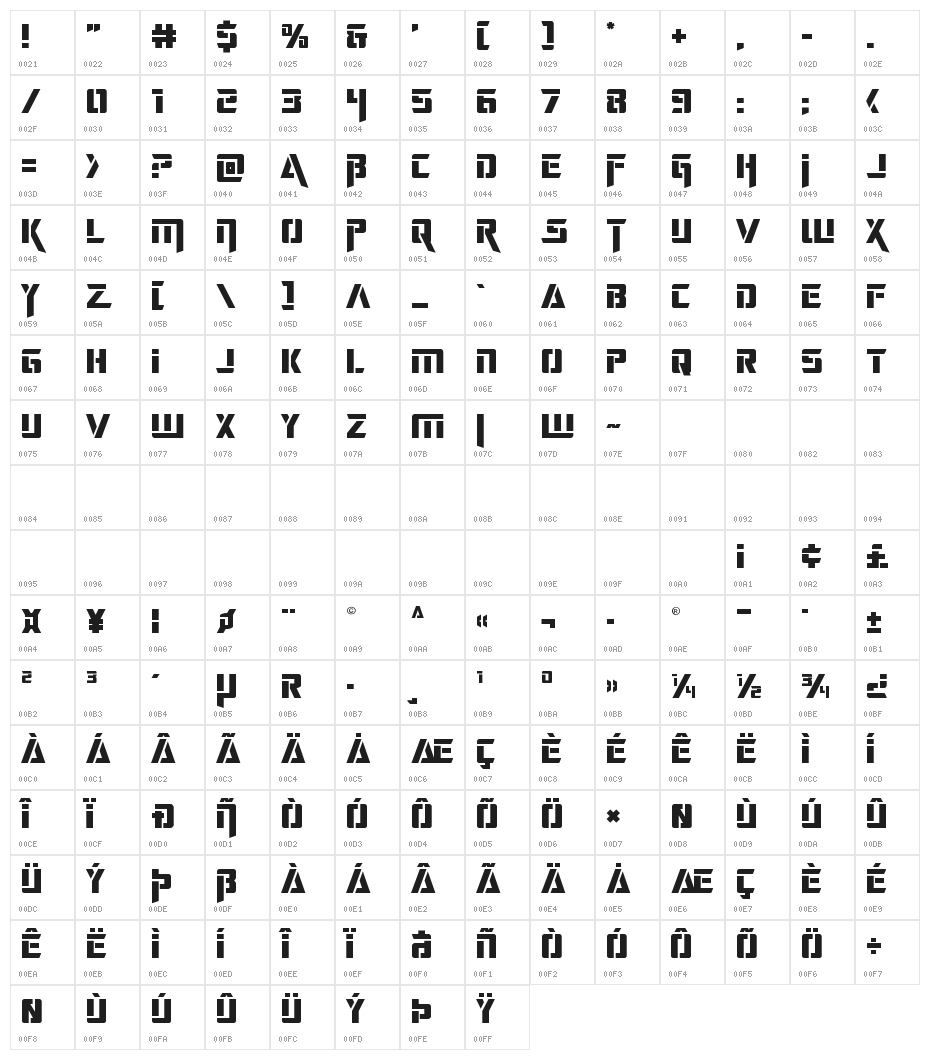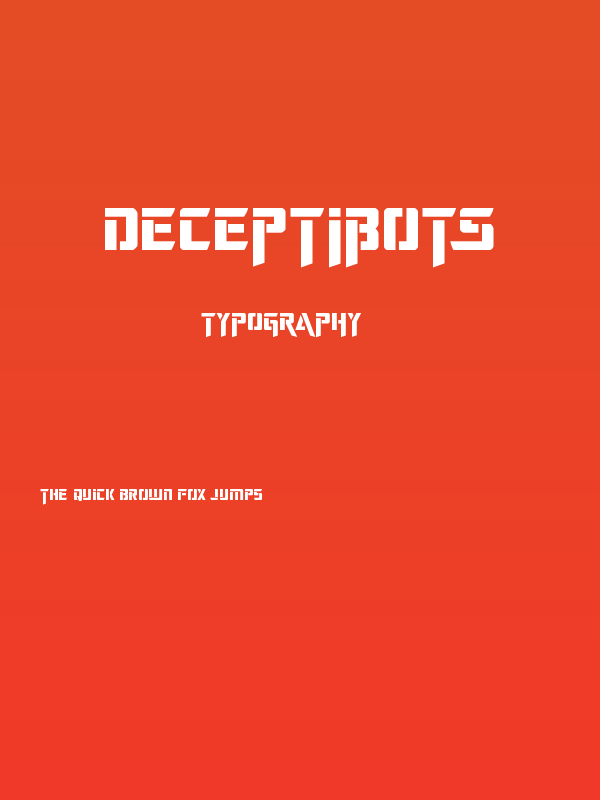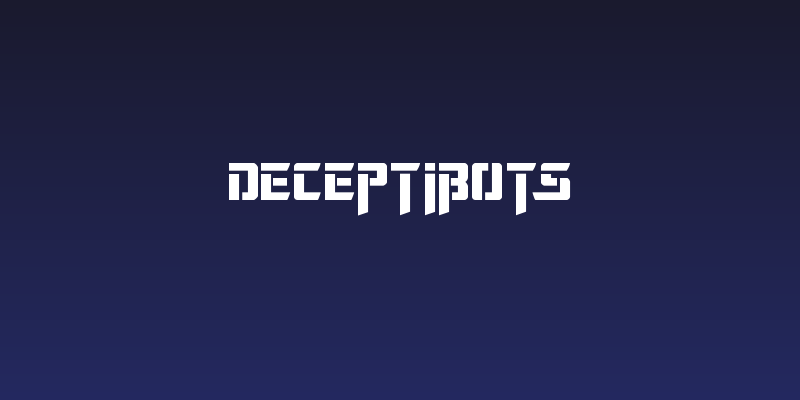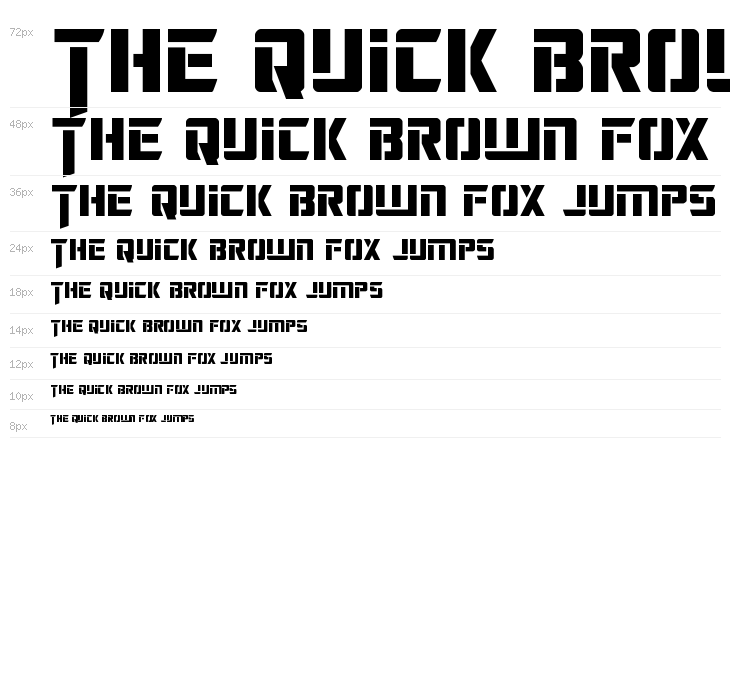
Deceptibots Font
Deceptibots Description
This font features a bold, angular design with a futuristic and mechanical aesthetic. The characters are constructed with sharp edges and geometric shapes, giving them a robotic and industrial feel. The uppercase and lowercase letters maintain a consistent style, with a strong emphasis on straight lines and pointed corners. The numerals and special characters follow the same design principles, ensuring uniformity across the typeface. This font is highly stylized, making it ideal for projects that require a modern and edgy look.
| Proposed Projects | Ideal for sci-fi themed projects, video game titles, movie posters, and branding for tech companies. |